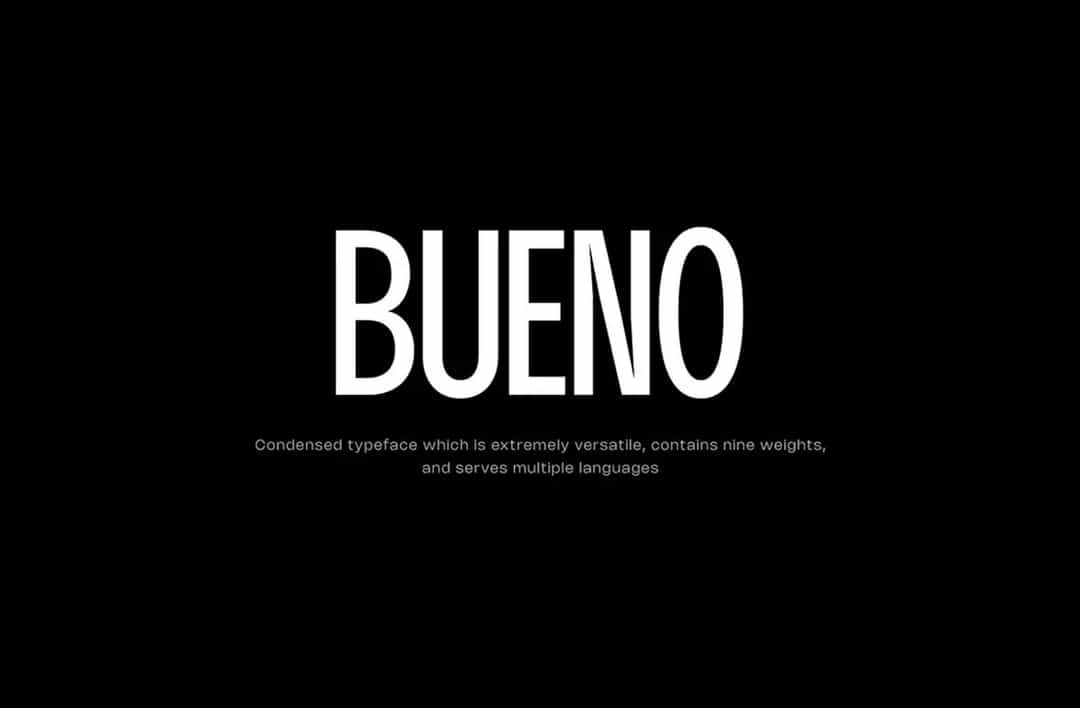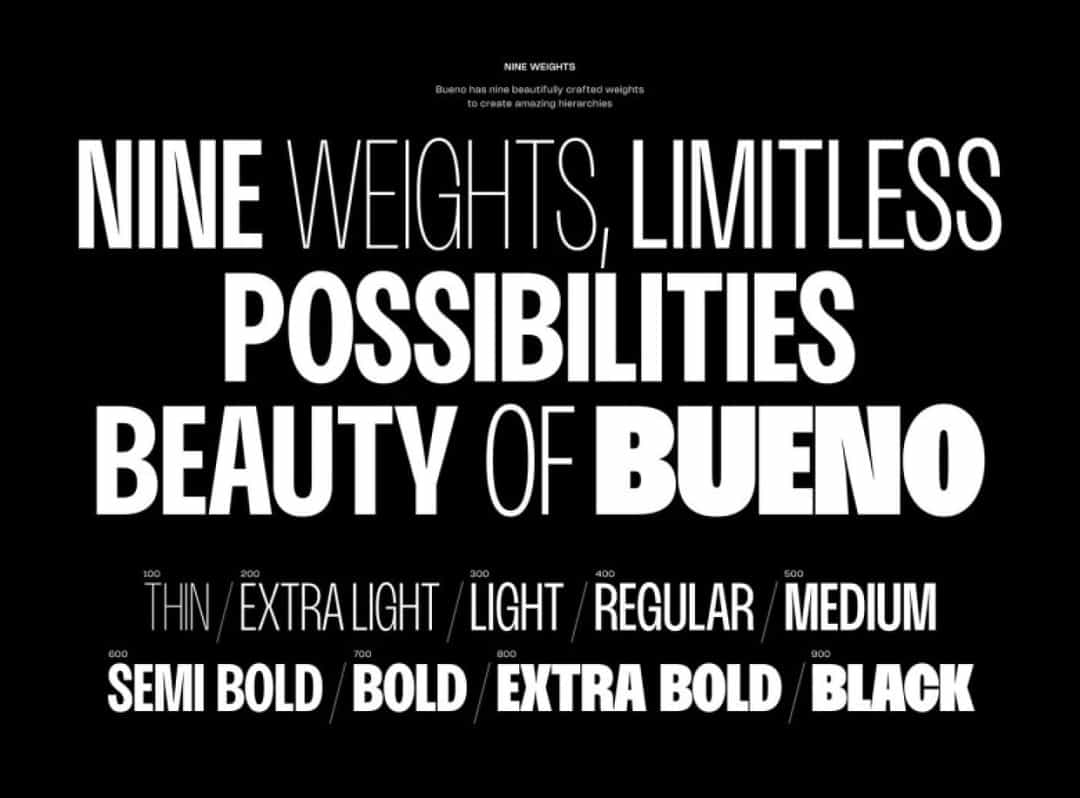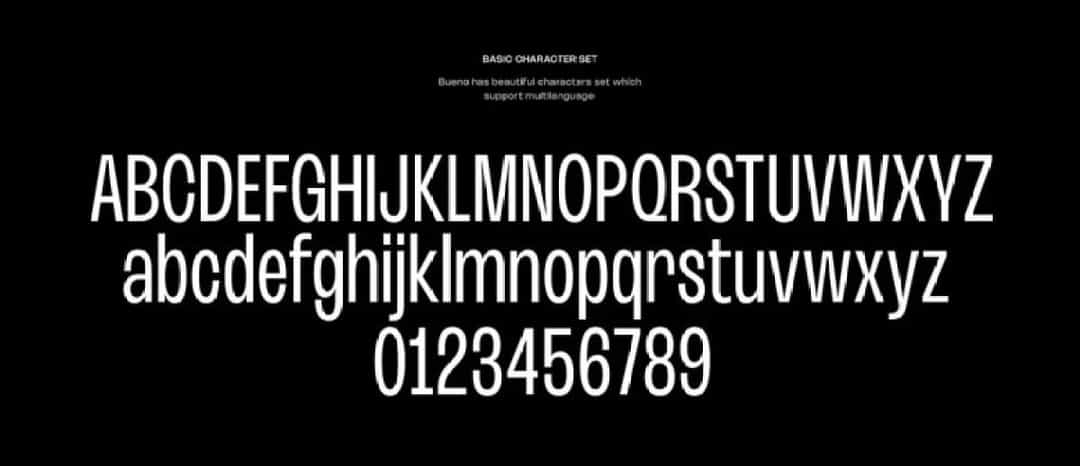
Discover Bueno Font, part of the Sans Serif Display collection—a versatile and unique font perfect for adding a personal touch to your projects. Download it for free and enjoy crafting designs with style, from invitations to social media posts. This font is available exclusively for personal use, giving you the freedom to create without limits. Unlock your creativity with Bueno Font today!
Bueno is an elongated typeface designed to grab people’s attention and add an eye-catching aesthetic in any layout. Boasting its own distinct character, Bueno makes for the ideal font choice when used for packaging designs, branding editorial pieces or any other purpose.